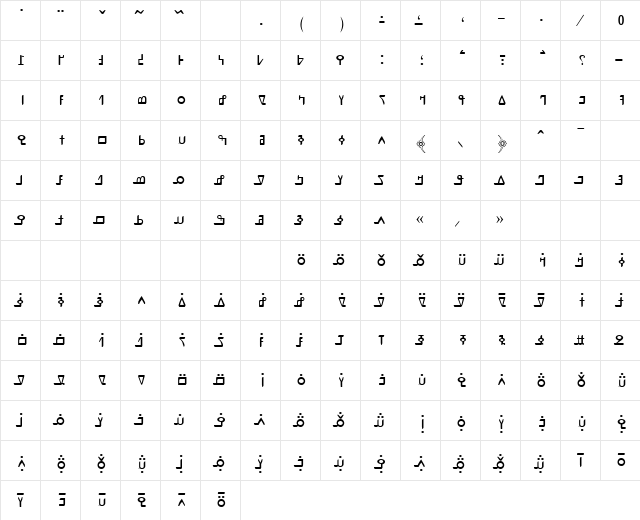
JG NKo Regular
Design Context for JG NKo Typeface
JG NKo takes a measured approach to typography — its balanced proportions and neutral character make it a reliable workhorse for both digital and print work.